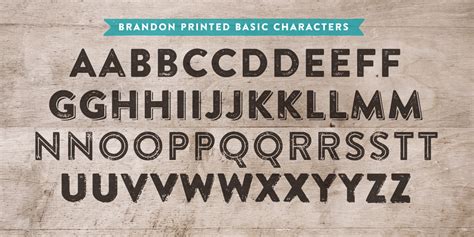
Brandon Printed Font. Web brandon printed font family is based on the famous brandon grotesque typeface. Web added by cullen crooks (8 styles) newly added fonts.
Web added by cullen crooks (8 styles) newly added fonts. Discover other fonts in display. Web brandon printed font family is based on the famous brandon grotesque typeface. It has an eroded, printed look with four variations.
Web brandon printed font family is based on the famous brandon grotesque typeface. Discover other fonts in display. Web brandon printed font family is based on the famous brandon grotesque typeface. Web added by cullen crooks (8 styles) newly added fonts. It has an eroded, printed look with four variations.